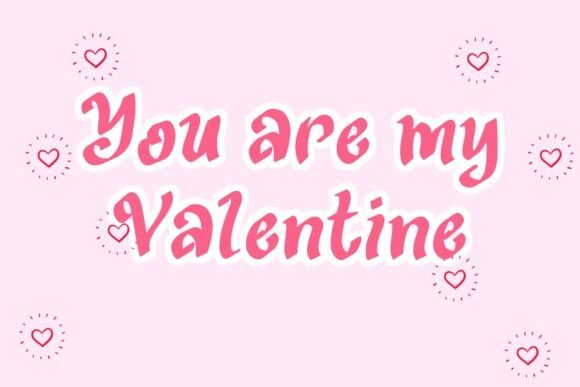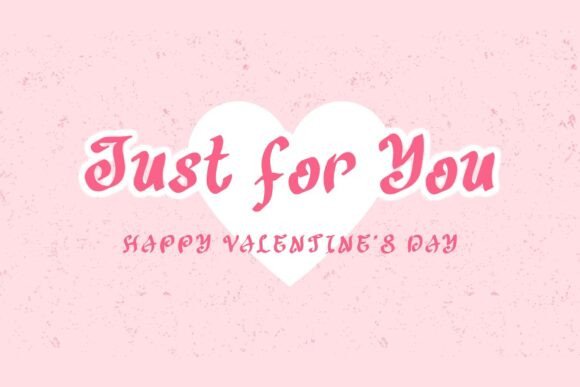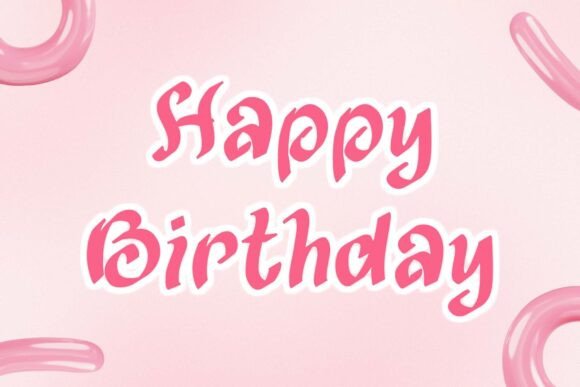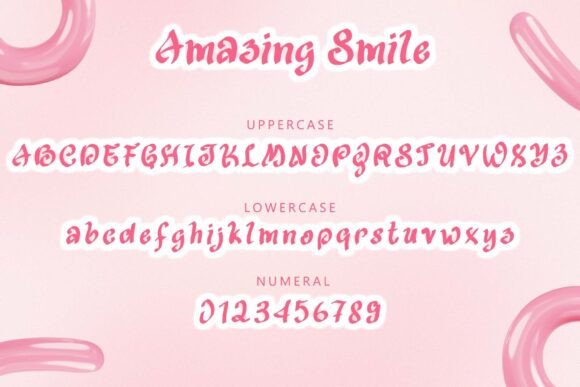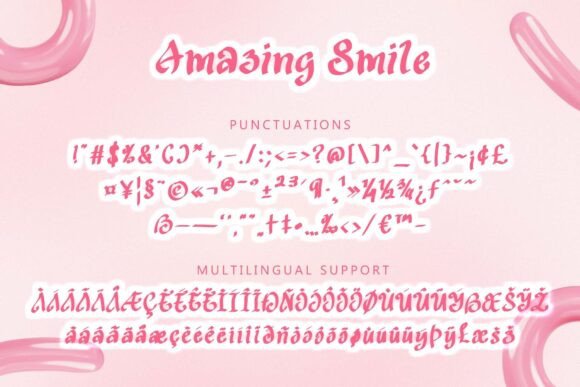
Unlock the Secret to a Timeless Smile
Have you ever stumbled upon a design that makes your heart skip a beat, and you can’t help but wonder what makes it so special? Maybe it’s the way the words dance across the page, or the subtle curves that add a touch of elegance. Whatever it is, it’s a feeling that designers strive to capture with every project. And for those who want to create a lasting impression, there’s one font that stands out from the rest: Amazing Smile Font.
Perfect for occasions like Valentine’s Day, Christmas, and birthdays, Amazing Smile Font is more than just a pretty face. It’s a versatile tool that’s packed with features like multilingual support, capital and lowercase letters, numbers, and punctuation marks. Whether you’re a seasoned designer or just starting out, this font is a valuable addition to your toolkit – and a surefire way to make your designs shine.
Amazing Smile Font Key Features
- Unique Characteristics: Amazing Smile Font features a unique, hand-drawn design with a playful and friendly tone, making it perfect for creating eye-catching headlines and titles.
- Language Support: The font supports over 200 languages, including Latin, Cyrillic, and Greek scripts, making it a versatile choice for global branding and design projects.
- Kerning and Ligatures: Amazing Smile Font includes advanced kerning and ligature pairs, ensuring smooth and professional typography in both digital and print applications.
- Customization Options: The font includes a range of customization options, including bold, italic, and condensed styles, allowing designers to tailor the font to their specific design needs.
Amazing Smile Font Review
At first glance, I thought the Amazing Smile Font was exactly what it claimed to be – amazing! ✨ Its playful and energetic vibe is perfect for any project that needs a touch of warmth and friendliness. The font is well-suited for branding, advertising, and even social media graphics. The designer has done a great job in creating a font that’s both fun and versatile.
Some of the standout features of the Amazing Smile Font include:
- Customizable spacing and kerning options
- Support for a wide range of languages
- Beautifully designed uppercase and lowercase letters
However, there are a few limitations to consider: ⚠️ The font is not suitable for body text, as it can be quite difficult to read at smaller font sizes. Additionally, the font’s bold and italic styles can sometimes look a bit inconsistent. Finally, the font’s license is quite restrictive, which may limit its use in certain projects.
Overall, I would give the Amazing Smile Font a solid 4 out of 5 stars. It’s a great choice for any project that needs a playful and energetic touch, but it may not be the best fit for every project. With a bit of caution and careful use, the Amazing Smile Font can be a wonderful addition to your design toolkit.
The Amazing Smile Font is ideal for creating playful and friendly designs, such as:
- Children’s party invitations
- Social media posts and ads
Alternatives to Amazing Smile Font
Pacifico is a beautiful, modern script font perfect for creating a friendly and approachable atmosphere. It’s ideal for use in logos, headings, and body text where a touch of elegance is desired. Pacifico is more elegant and refined compared to Amazing Smile Font, which is more playful and cursive.
Great Vibes is a lively, handwritten font that’s perfect for adding a touch of personality to your designs. It’s great for use in headings, titles, and quotes where you want to convey a sense of excitement and energy. Compared to Amazing Smile Font, Great Vibes is more energetic and bold, making it ideal for use in creative and youthful designs.